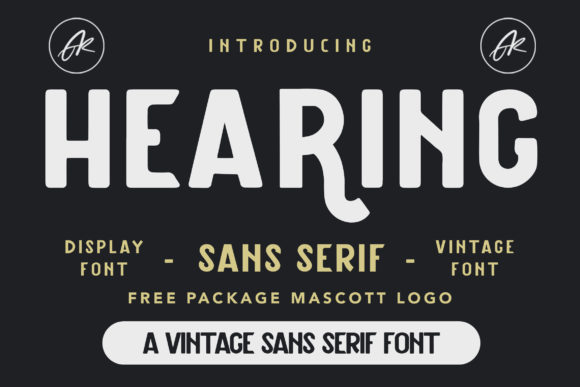
Behold, the Hearing Font - a typographic masterpiece that evokes a symphony of elegance and creativity, inviting you to transcend the boundaries of ordinary expression. Let your words dance across the digital canvas with a grace that captivates and inspires. Crafted with meticulous artistry, the Hearing Font is a sans serif wonder, each character imbued with a distinct personality, a bold statement of individuality.
Unleash your inner storyteller with this vintage-inspired font, a timeless treasure that whispers tales of yesteryear while embracing the vitality of the modern age. Picture your words adorning headlines, titles, and book covers, commanding attention like a maestro leading an orchestra. The Hearing Font lends its charm to posters, movies, and myriad other creative projects, transforming them into captivating works of art.
Immerse yourself in the Hearing Font's intricate details, revel in the subtle curves and sharp angles that harmonize to create a visual feast. Its bold strokes exude confidence and strength, while its delicate flourishes add a touch of whimsy and intrigue. This font is an ode to versatility, effortlessly adapting to diverse design aesthetics, from classic and traditional to contemporary and edgy.
Embrace the Hearing Font's allure and watch your creative vision come alive. Let your imagination soar as you explore the endless possibilities, knowing that every word, every phrase, and every sentence crafted with this font will resonate with a timeless beauty and impact.